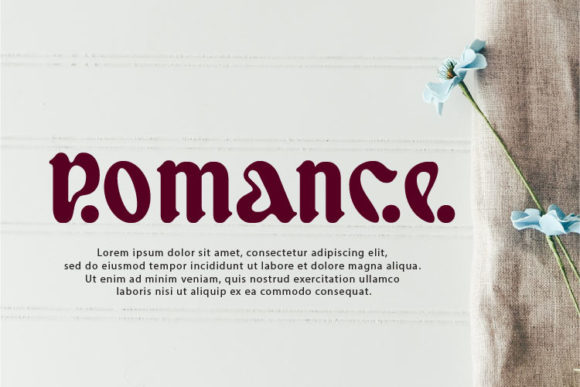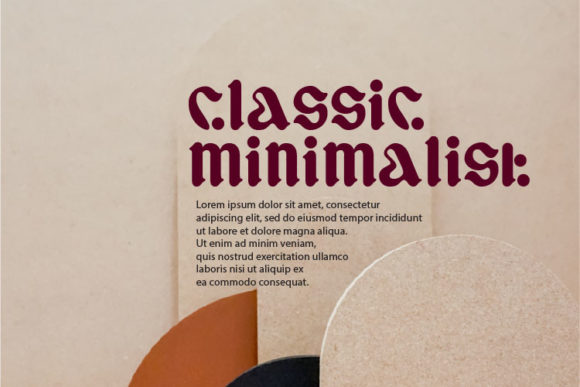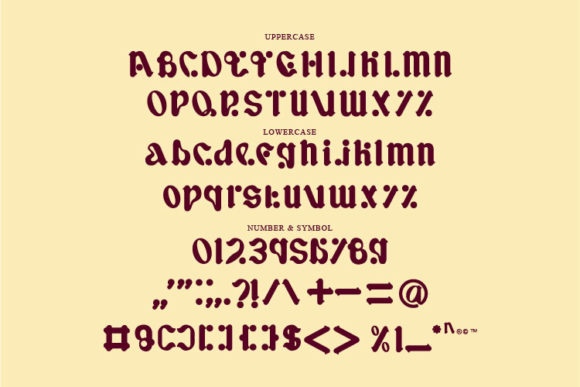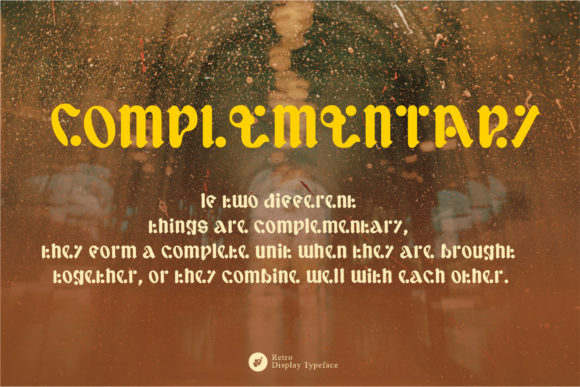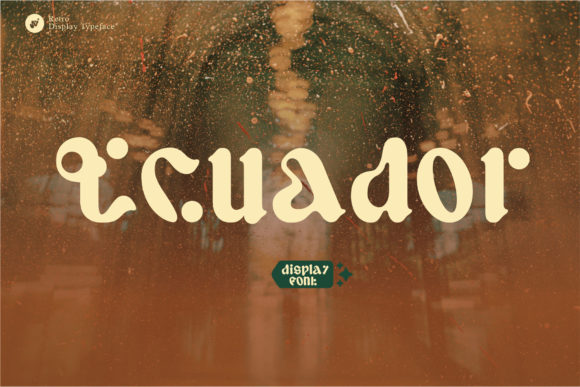
Ecuador Font: Elevate Your Designs with a Cool and Bold Display Font
Are you tired of using the same old fonts in your designs? Look no further than the Ecuador Font, a cool and bold display font that’s incredibly versatile and perfect for taking your creative projects to the next level. In this article, we’ll dive into the features and benefits of the Ecuador Font, and explore how it can elevate your designs and make them come alive.
What is Ecuador Font?
Ecuador Font is a modern and stylish display font that’s designed to make a statement. With its bold and eye-catching design, this font is perfect for headlines, titles, and other attention-grabbing elements in your designs. Whether you’re working on a logo, brochure, or website, the Ecuador Font is sure to turn heads and leave a lasting impression.
Key Features of Ecuador Font
- Cool and Bold Design: The Ecuador Font boasts a unique and stylish design that’s sure to grab attention. Its bold and modern look makes it perfect for creating eye-catching headlines and titles.
- Incredibly Versatile: This font is incredibly versatile and can be used in a wide range of designs, from logos and brochures to websites and social media graphics.
- Easily Readable: Despite its bold design, the Ecuador Font is easily readable, even at smaller sizes. This makes it perfect for use in a variety of applications, from print to digital.
- High-Quality Design: The Ecuador Font is designed with high-quality and precision, ensuring that it looks great in any design.
Benefits of Using Ecuador Font
So why should you choose the Ecuador Font for your designs? Here are just a few benefits of using this amazing font:
- Adds Visual Interest: The Ecuador Font adds visual interest to your designs, making them more engaging and attention-grabbing.
- Elevates Your Brand: With its modern and stylish design, the Ecuador Font can help elevate your brand and give it a professional and polished look.
- Perfect for Creative Projects: Whether you’re working on a creative project or designing marketing materials, the Ecuador Font is perfect for adding a touch of personality and style.
- Easy to Use: The Ecuador Font is easy to use and can be easily integrated into your designs, even if you’re not a professional designer.
How to Use Ecuador Font in Your Designs
Using the Ecuador Font in your designs is easy. Here are a few tips to get you started:
- Use it as a Headline Font: The Ecuador Font is perfect for use as a headline font, adding a bold and eye-catching element to your designs.
- Pair it with Other Fonts: The Ecuador Font pairs well with other fonts, making it easy to create a unique and stylish design.
- Experiment with Different Sizes: Don’t be afraid to experiment with different sizes and styles of the Ecuador Font to find the perfect look for your design.
In conclusion, the Ecuador Font is a cool and bold display font that’s perfect for designers and crafters looking to elevate their designs. With its incredibly versatile design, high-quality construction, and ease of use, this font is sure to become a favorite in your creative toolkit. So why wait? Add the Ecuador Font to your favorite creative ideas and notice how it makes them come alive!
- Is the Ecuador Font easy to read?: Yes, despite its bold design, the Ecuador Font is easily readable, even at smaller sizes.